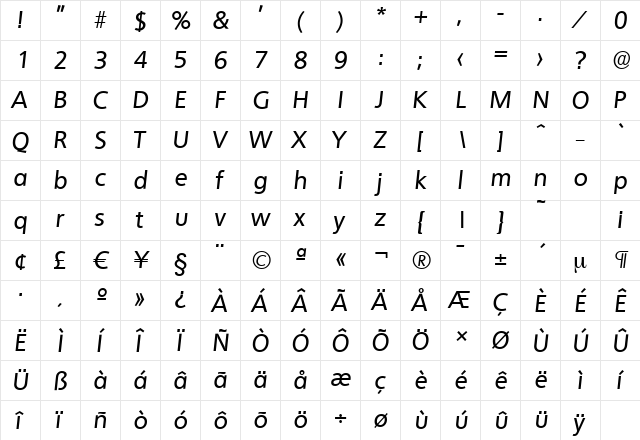
QuebecSerial-Medium Italic Font Preview
QuebecSerial-Medium Italic
QuebecSerial-Medium Italic Font Details
Design Context for QuebecSerial-Medium Typeface
QuebecSerial-Medium offers clean, dependable letterforms without strong stylistic allegiance, making it a practical choice for designers who need flexibility. Its italic angle brings a sense of urgency and motion to the letterforms.
Pro Tip: Try QuebecSerial-Medium for annotation and caption copy alongside an upright companion — the contrast in angle creates a dynamic but ordered typographic system.